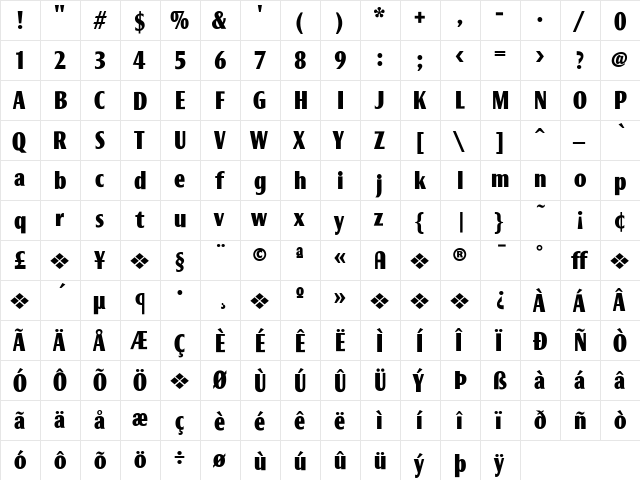
Roxy Regular
| Foundry | Copr. John Downer. Designed by John Downer. Produced by The Font Bureau, Inc |
Design Context for Roxy Typeface
Roxy takes a measured approach to typography — its balanced proportions and neutral character make it a reliable workhorse for both digital and print work.